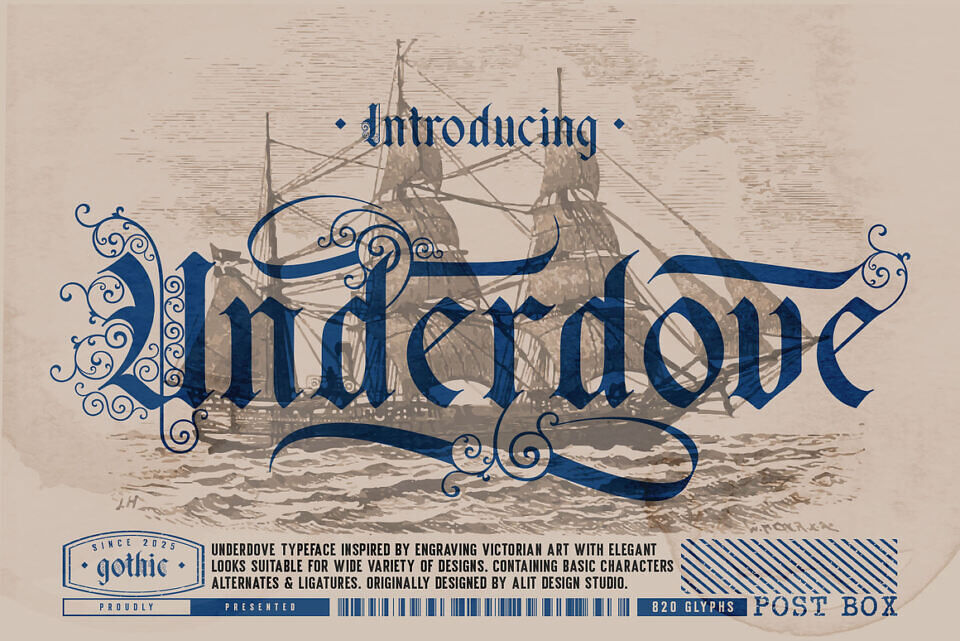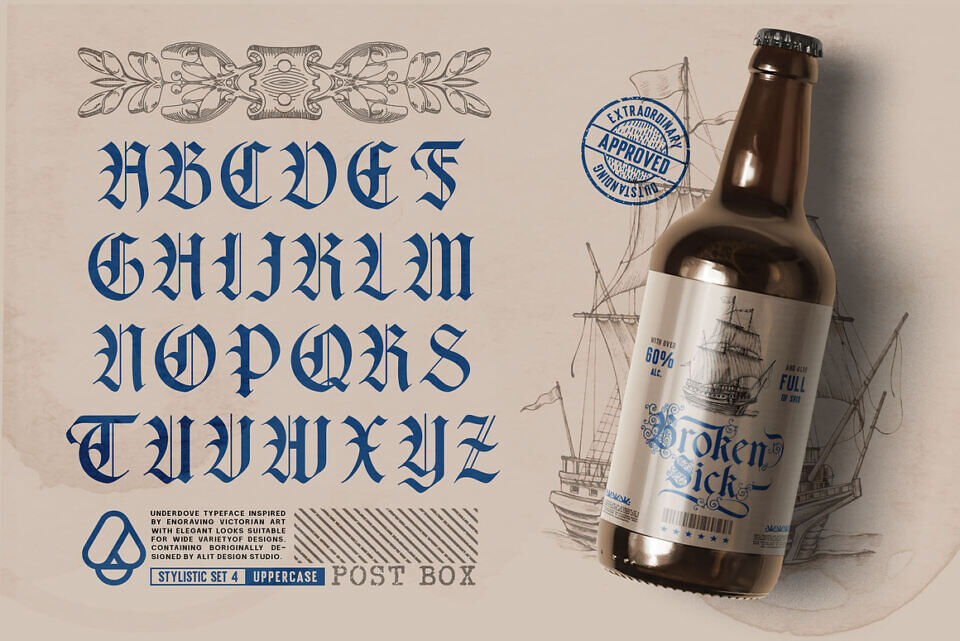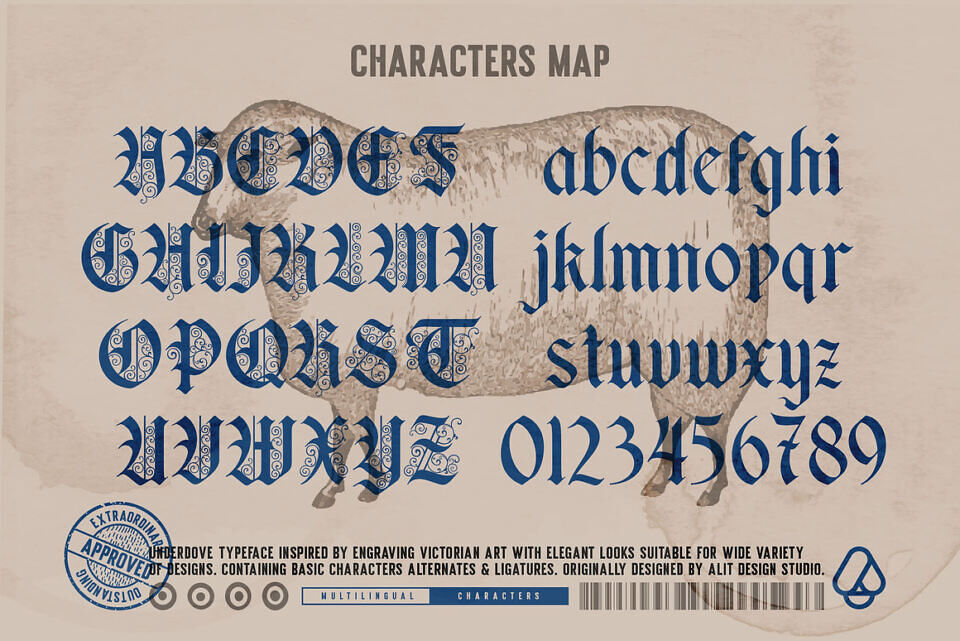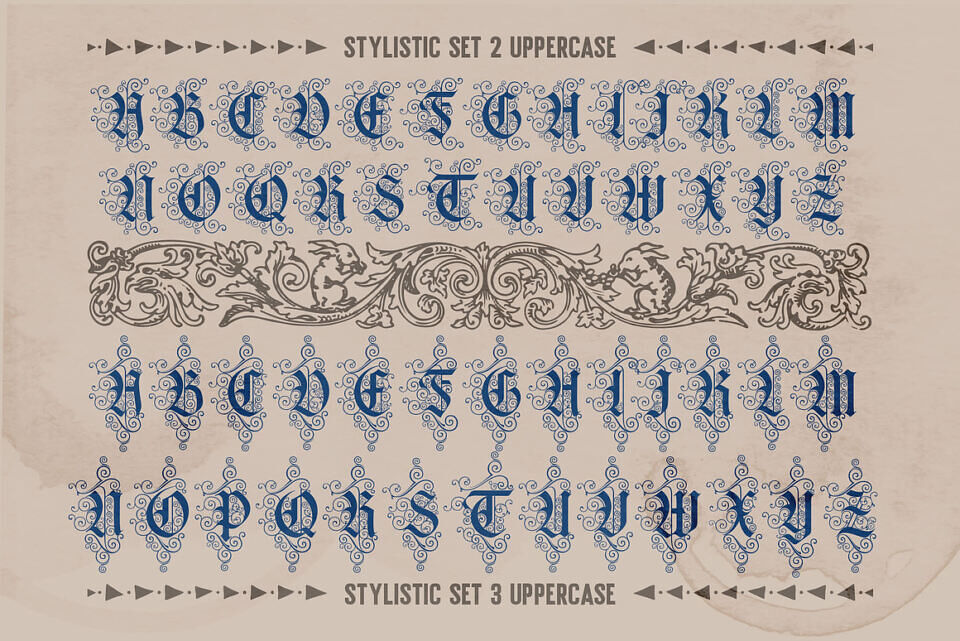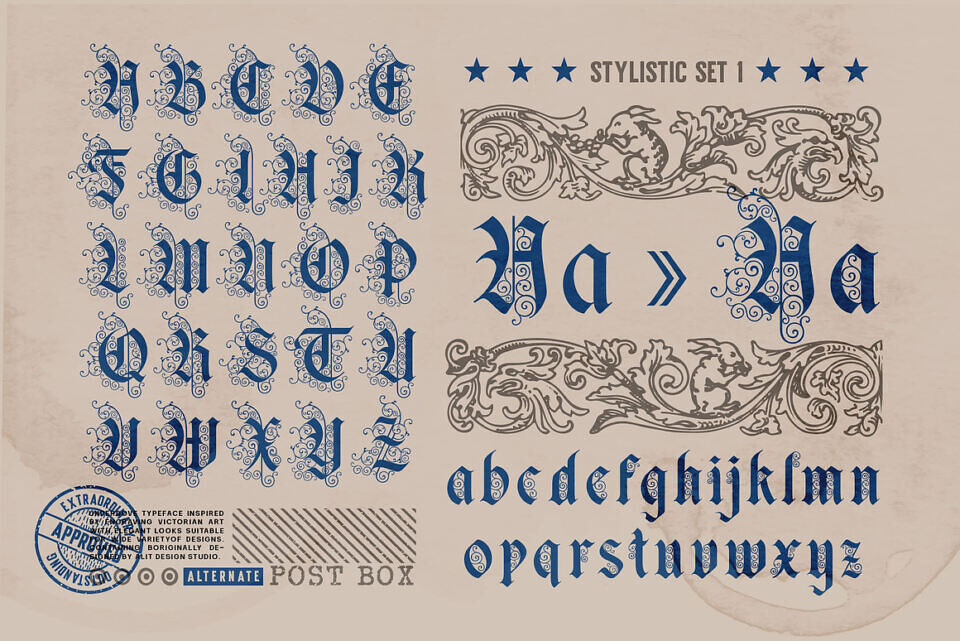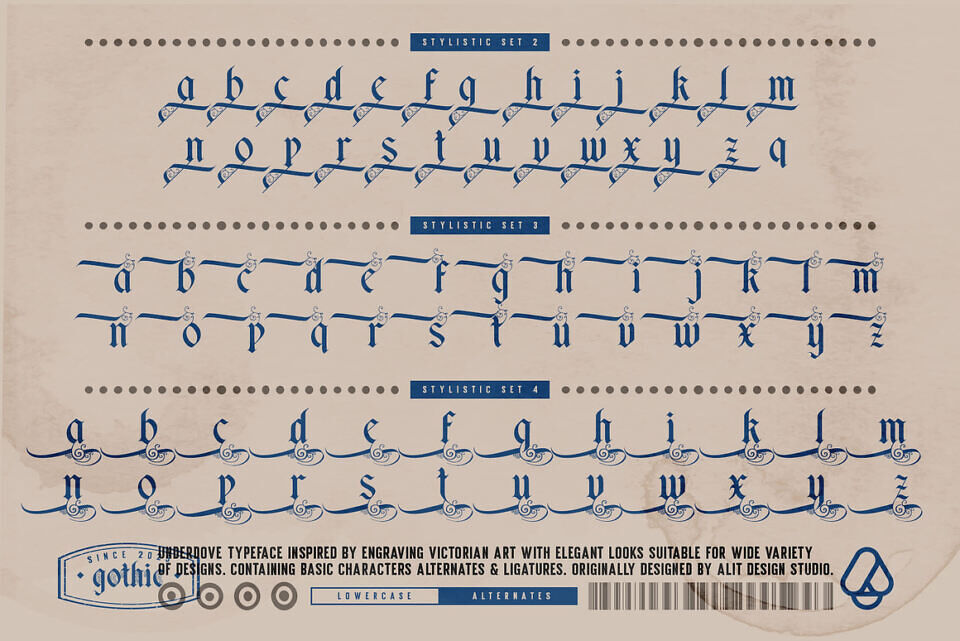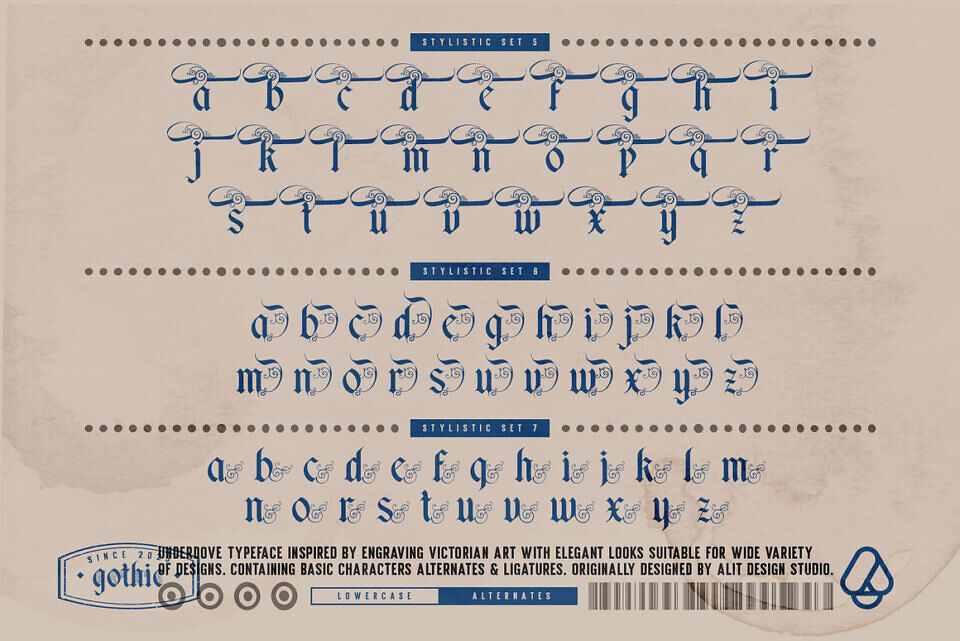
Introducing Underdove Typeface, a meticulously designed blackletter font that draws its soul from the Victorian era’s ornamental engravings and the enduring sophistication of classical calligraphy.
Each character in Underdove is shaped with intention — combining bold Gothic structure with flourished elegance — making it a powerful choice for branding, editorial designs, packaging, posters, and other high-impact visual compositions.
Crafted by Alit Design Studio, Underdove is a celebration of detail and historical beauty, fused with the flexibility modern creatives demand.